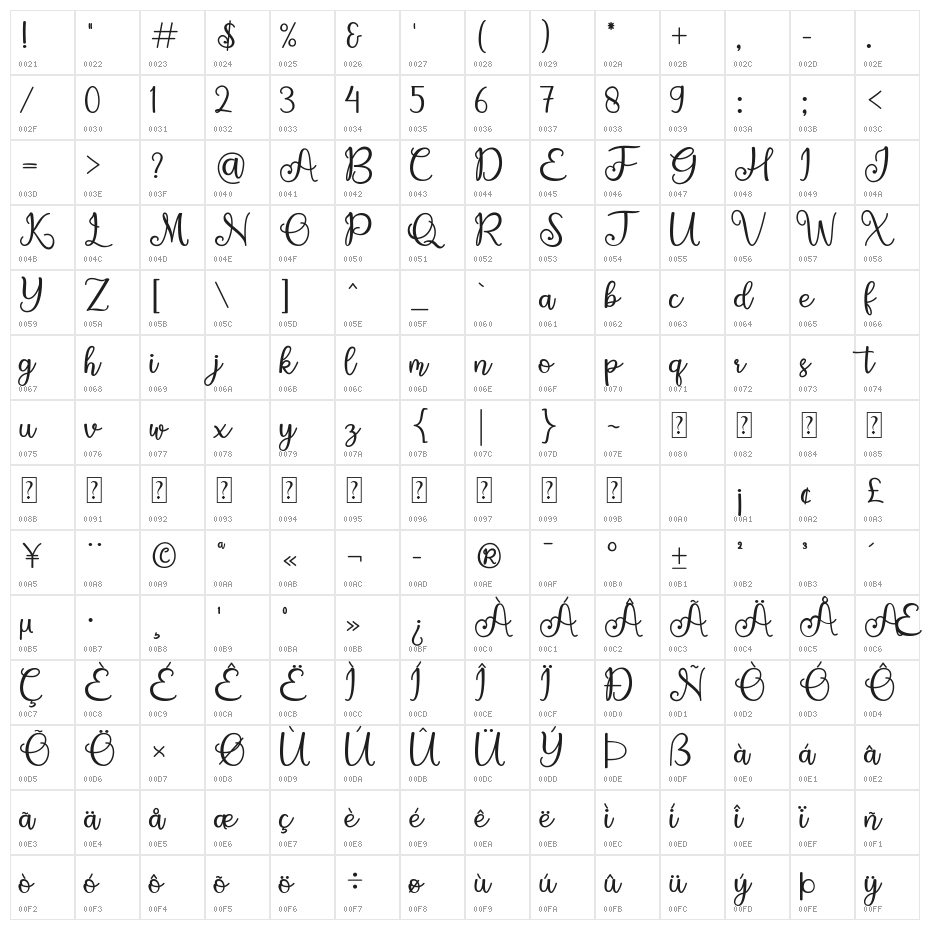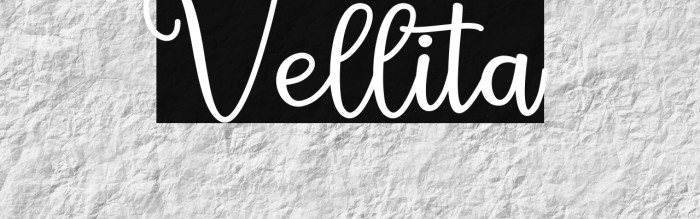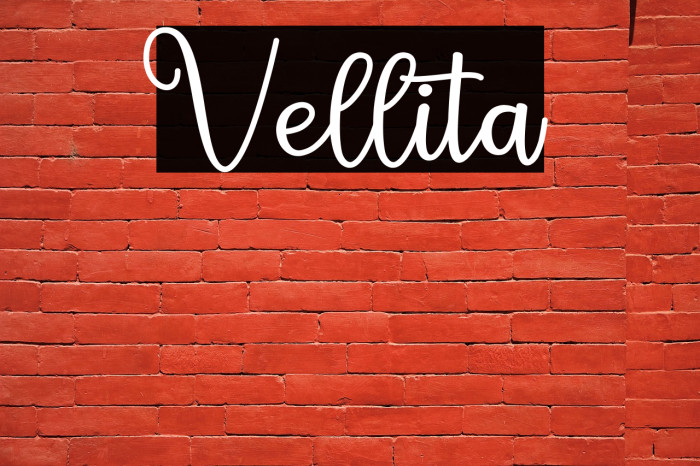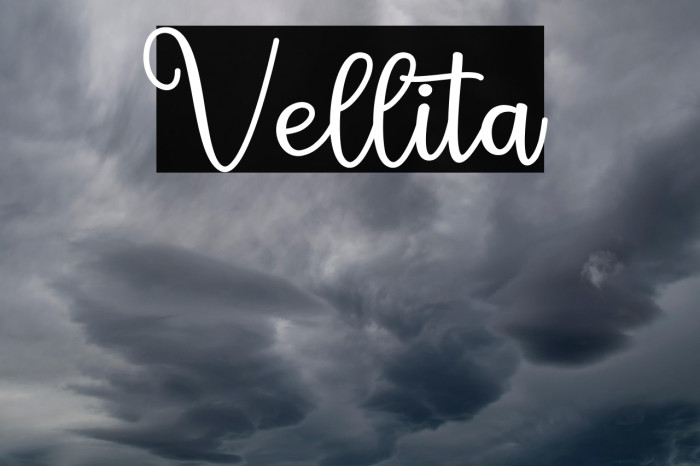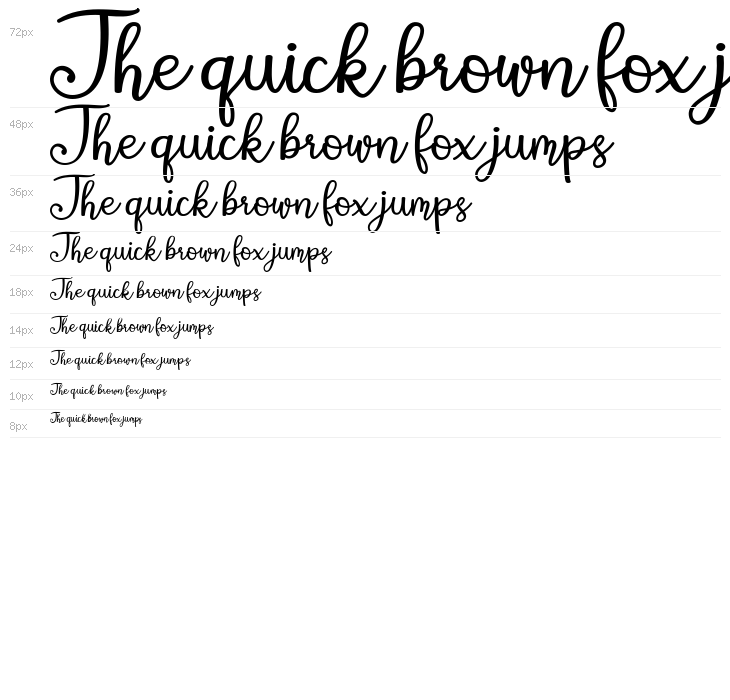
Vellita Font
Vellita Description
This font features a charming and elegant script style with a hand-drawn appearance. The uppercase letters are gracefully connected, creating a flowing and cohesive look. The lowercase letters maintain a consistent style, with smooth curves and loops that add to the font's overall fluidity. The numerals are clear and legible, complementing the script style with a slightly more structured form. Special characters are thoughtfully designed to match the aesthetic, ensuring versatility in various design contexts. The font's playful yet sophisticated nature makes it suitable for a wide range of creative projects.
| Use Case | Logos, Invitations, Social Media |
| Proposed Projects | Ideal for wedding invitations, greeting cards, branding, and social media graphics. |